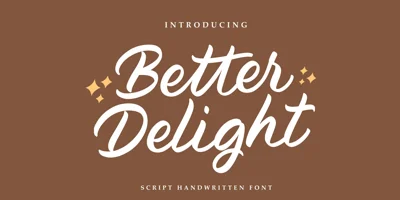
Better Delight Font
This cheerful typeface excels in various uplifting applications including celebration invitations, bakery branding, children's party supplies, greeting card designs, ice cream parlor logos, candy packaging, lifestyle blogs, and positive quote graphics. The Better Delight Font radiates pure joy through its playful letterforms that dance with optimistic energy and irresistible charm, making every message feel like a celebration.
What makes this font truly exciting is its contagious happiness expressed through bouncy baseline variations and whimsical character details that instantly lift spirits and create smiles. The lovingly designed characters feature rounded edges, friendly curves, and delightful quirks that make text feel like it's bubbling with enthusiasm. Its distinctive personality combines childlike wonder with professional craftsmanship, creating typography that spreads positivity while maintaining excellent readability.
The Better Delight Font family includes joyful variations to suit every happy occasion: Regular, Bold, Light, and Extra Bold styles, plus bonus swashes, hearts, and decorative elements. Each family member preserves the signature cheerfulness while offering flexibility for creating designs that range from subtly sweet to explosively jubilant.